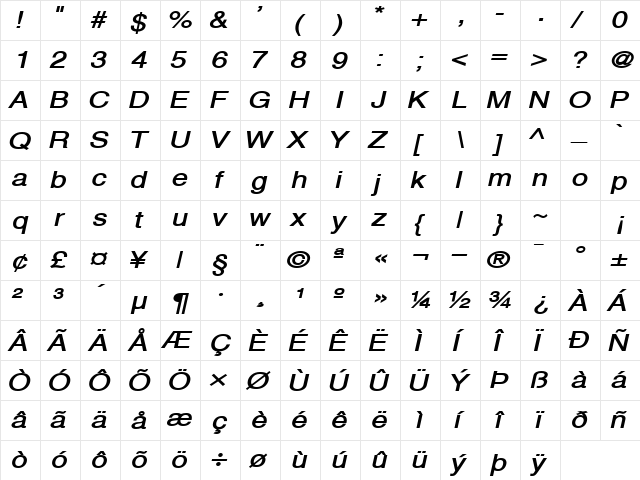
Alps Wide BoldItalic
Design Context for Alps Wide Typeface
Alps Wide is a composed and adaptable typeface that performs quietly and consistently across a wide range of design contexts. The slanted form adds forward momentum and visual energy. Its bold stroke weight gives it real presence on the page.
Pro Tip: Try Alps Wide for annotation and caption copy alongside an upright companion — the contrast in angle creates a dynamic but ordered typographic system.